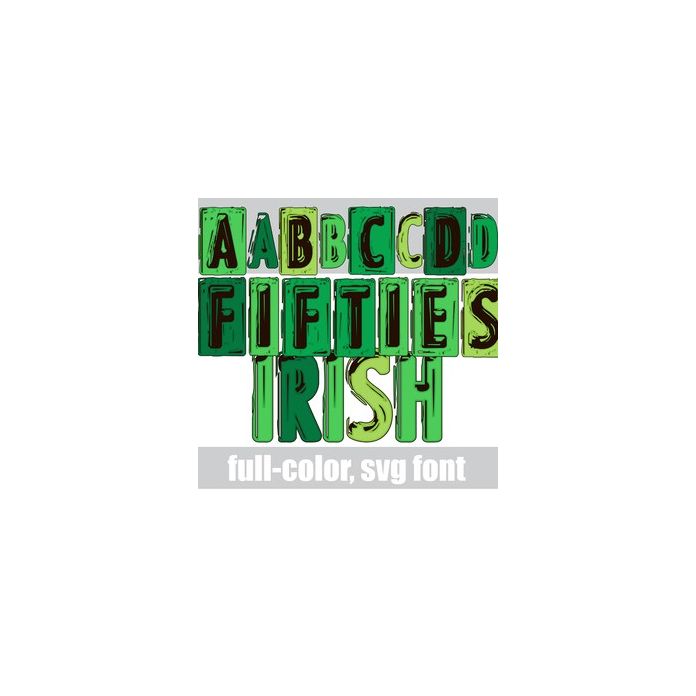
This full-color font features license plate style lettering in a St. Patrick's Day color palette. There is an alt case w/ additional colors you can access through your system or Silhouette's glyph map.